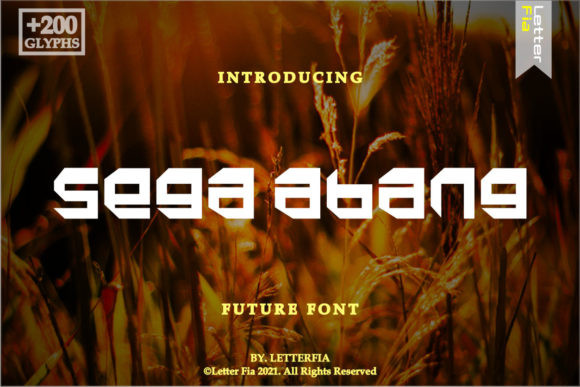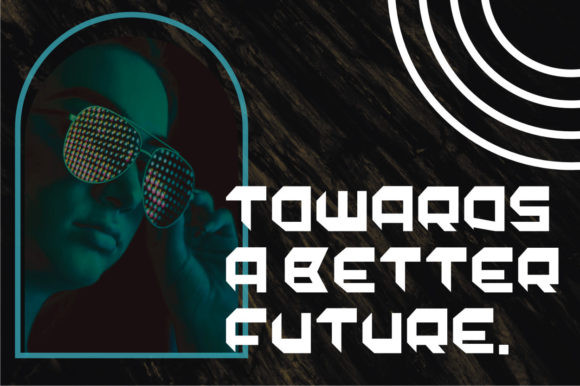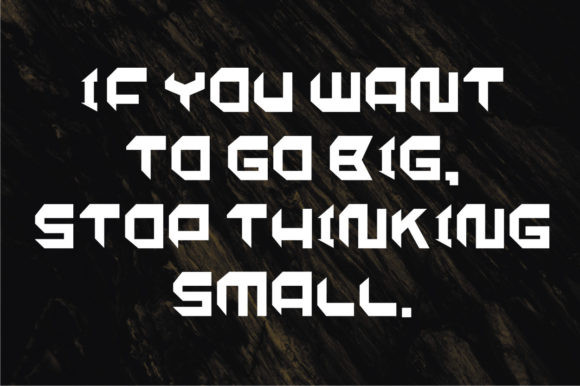
Sega Abang Font
Sega Abang is an imposing display font, that has a cool, street art vibe. This font is suitable for designs such as t-shirts, sportswear, logos, advertisements, clothing, and more.